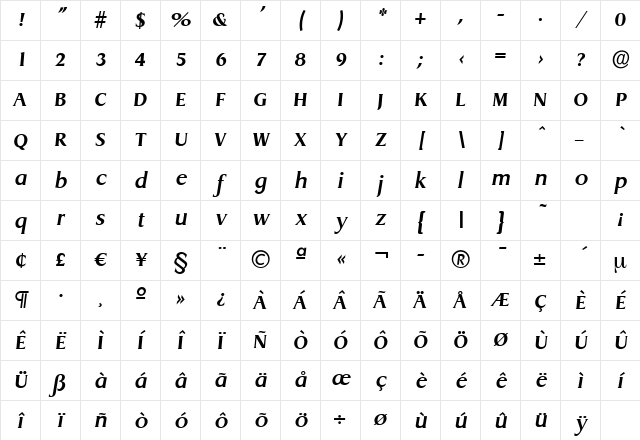
AaronBecker Bold Italic
AaronBecker Family
AaronBecker Bold Italic
Design Context for AaronBecker
AaronBecker is a composed and adaptable typeface that performs quietly and consistently across a wide range of design contexts. The slanted form adds forward momentum and visual energy. Its bold stroke weight gives it real presence on the page.
Pro Tip: Use AaronBecker for emphasis, pull quotes, and subheadings where its slanted energy can add rhythm to the layout.